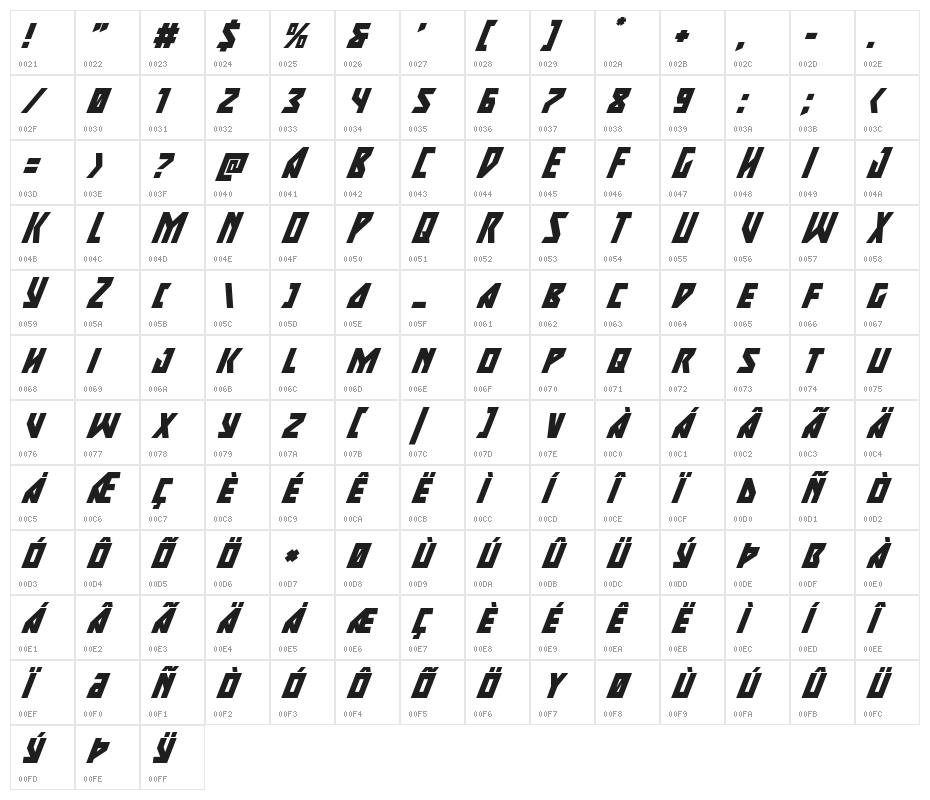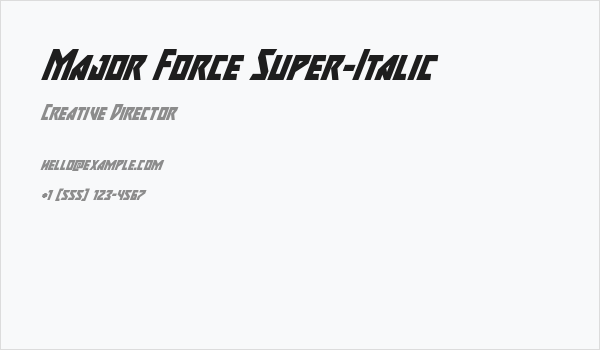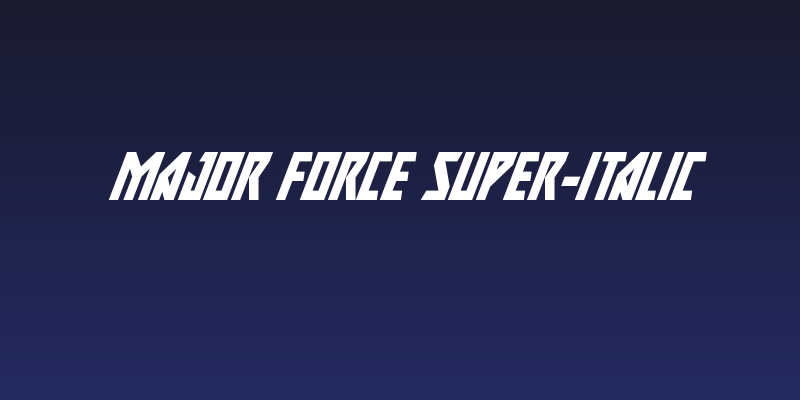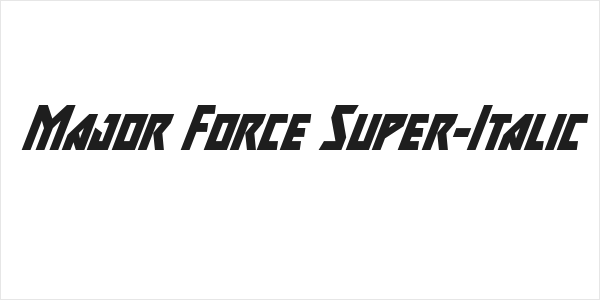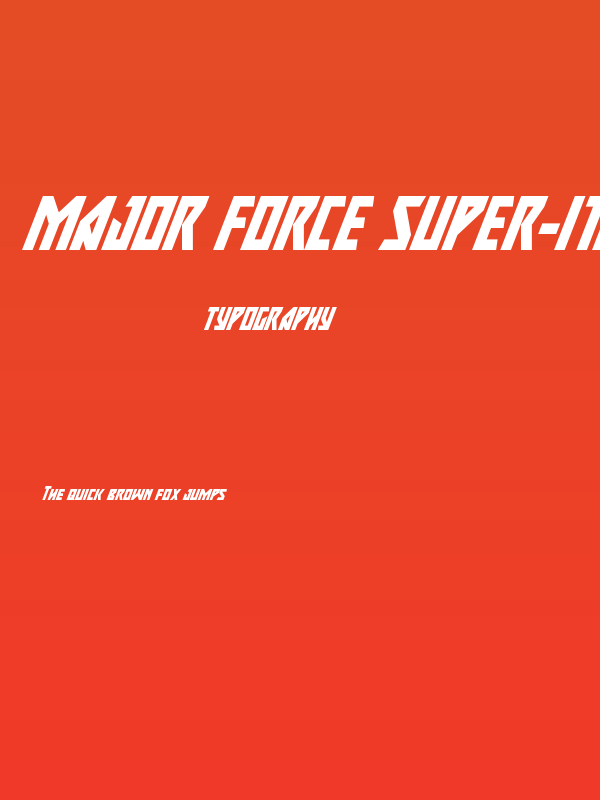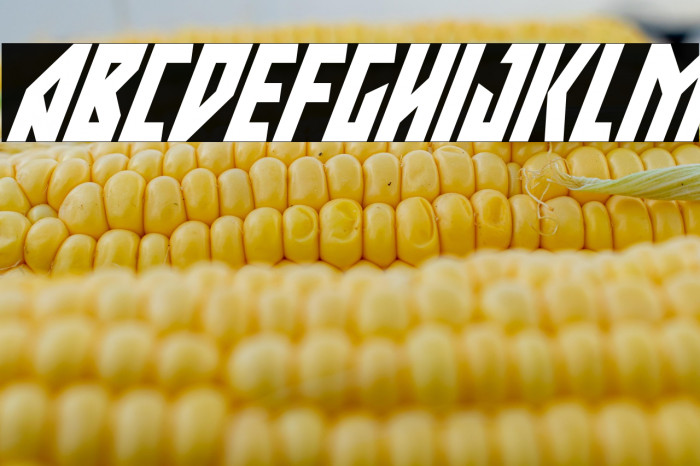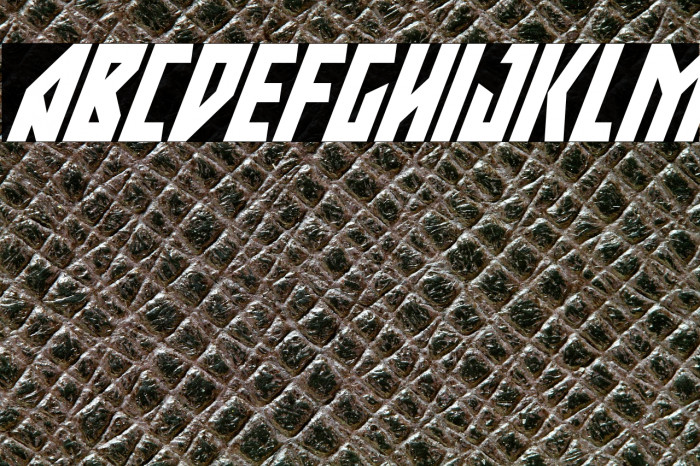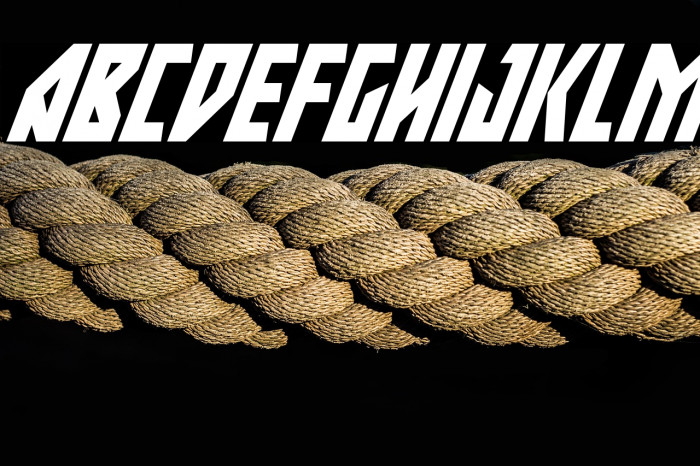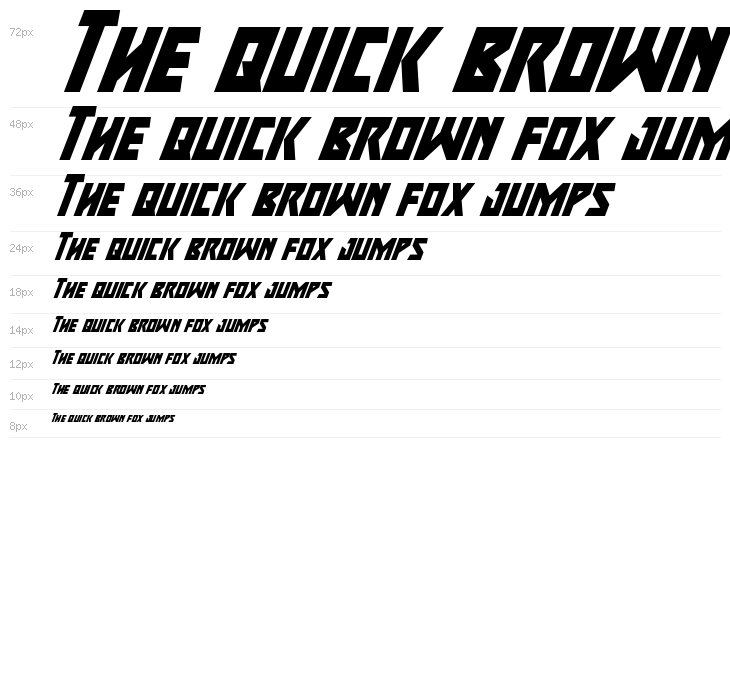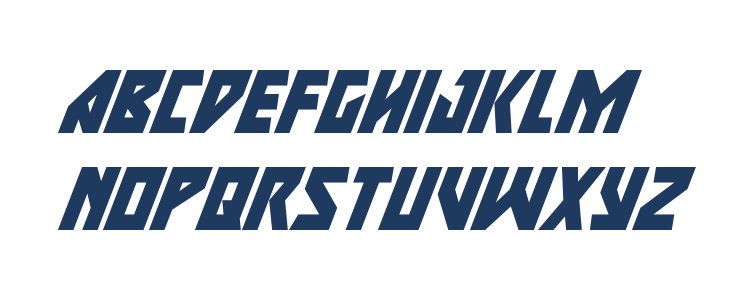
Major Force Super-Italic Font
Major Force Super-Italic Description
This font features a bold and dynamic style with a strong italic slant, giving it a sense of motion and energy. The characters are angular and geometric, with sharp edges and a futuristic appearance. The uppercase and lowercase letters maintain a consistent style, while the numbers and special characters complement the overall design. The font's aggressive and modern look makes it suitable for projects that require a bold statement.
| Proposed Projects | Ideal for sports branding, action movie posters, video game titles, and dynamic advertising campaigns. |